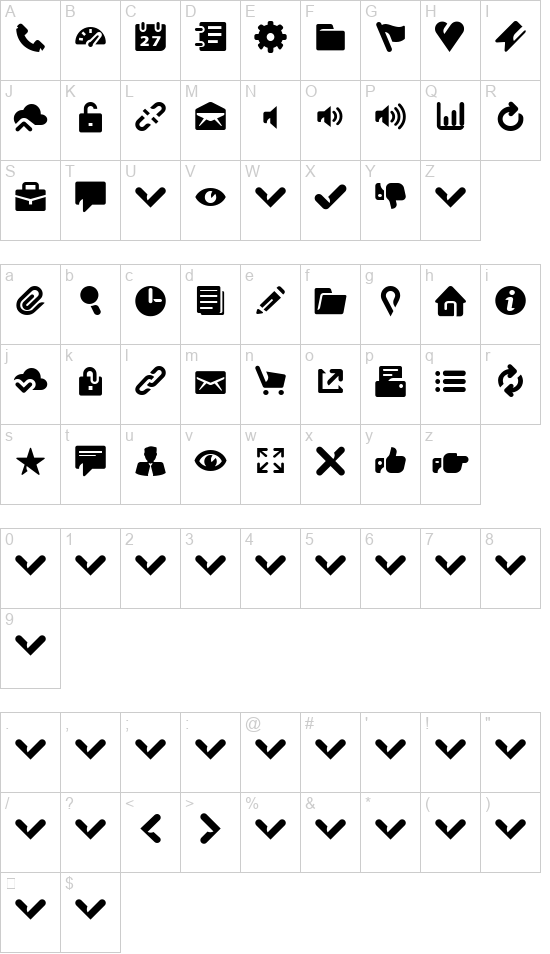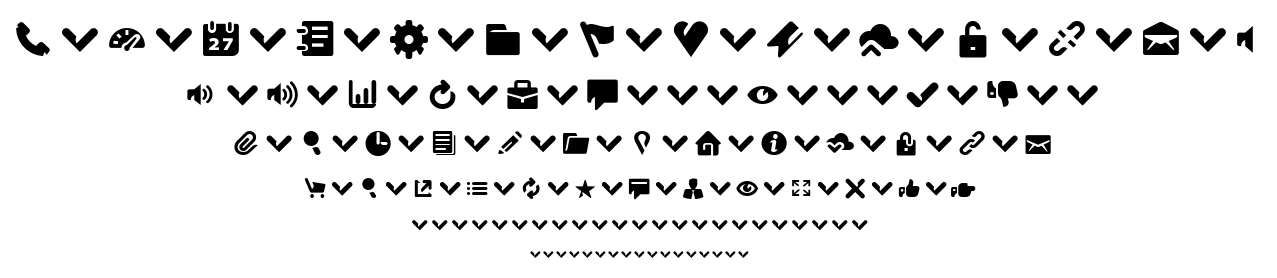
This minimal ui font sent is a great addition for your next design project.
Font set released by Breezi the web design app to create and publish professional looking websites fast.